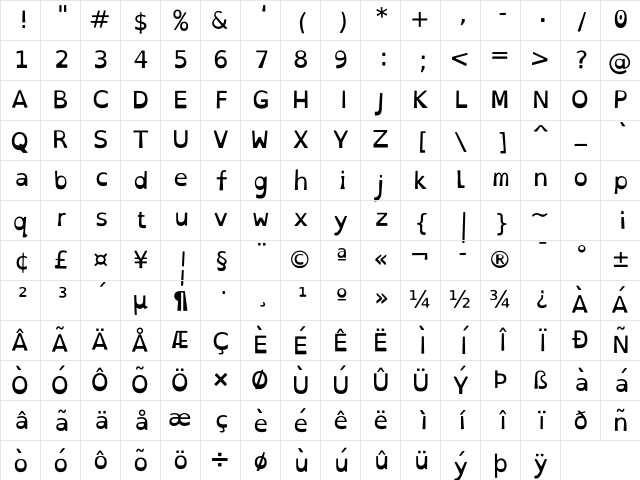
Complete OpenDyslexicMono Nerd Font Regular glyph index. Displaying only characters natively supported by OpenDyslexicMono Nerd Font Regular font.
OpenDyslexicMono Nerd Font uses fixed-width spacing throughout, giving it the structured, systematic character associated with coding environments and technical documentation.
Pro Tip: Use OpenDyslexicMono Nerd Font with slightly increased line-height for extended reading - fixed-width spacing can feel dense in longer passages without extra breathing room.